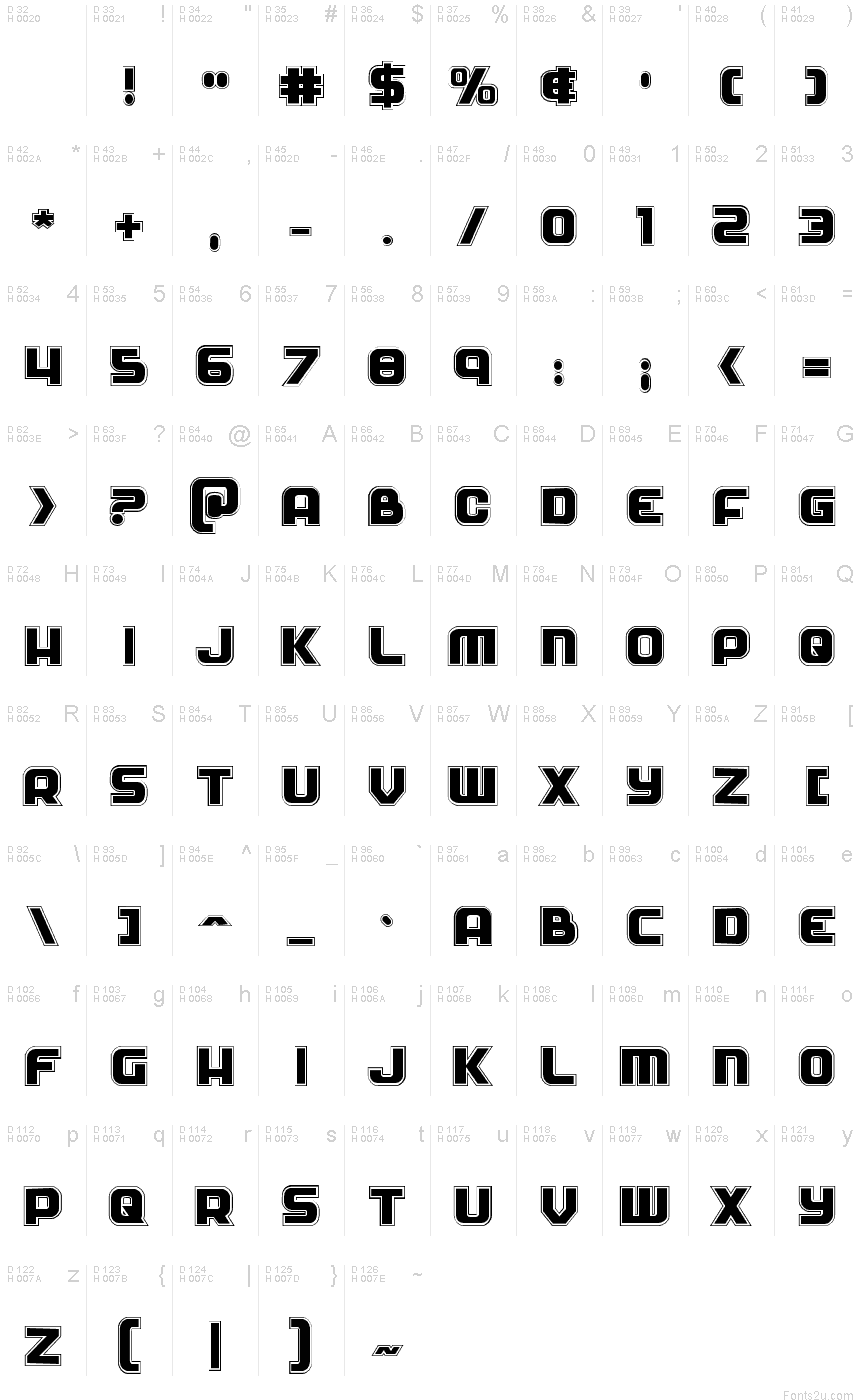
Soldier Academy by Daniel Zadorozny of Iconian Fonts is a free old-school outlined display font with the force of classic varsity lettering. Broad, tightly fitted capitals combine squared inner shapes with rounded outer corners, and the layered edging gives each letter the look of a sewn team emblem.
Sports clubs and school audiences are its clearest match. It suits team merchandise, event posters, and gym signage. The repeated border treatment connects the lettering to jacket patches and uniform graphics, making it especially convincing for athletic branding.
Soldier Academy